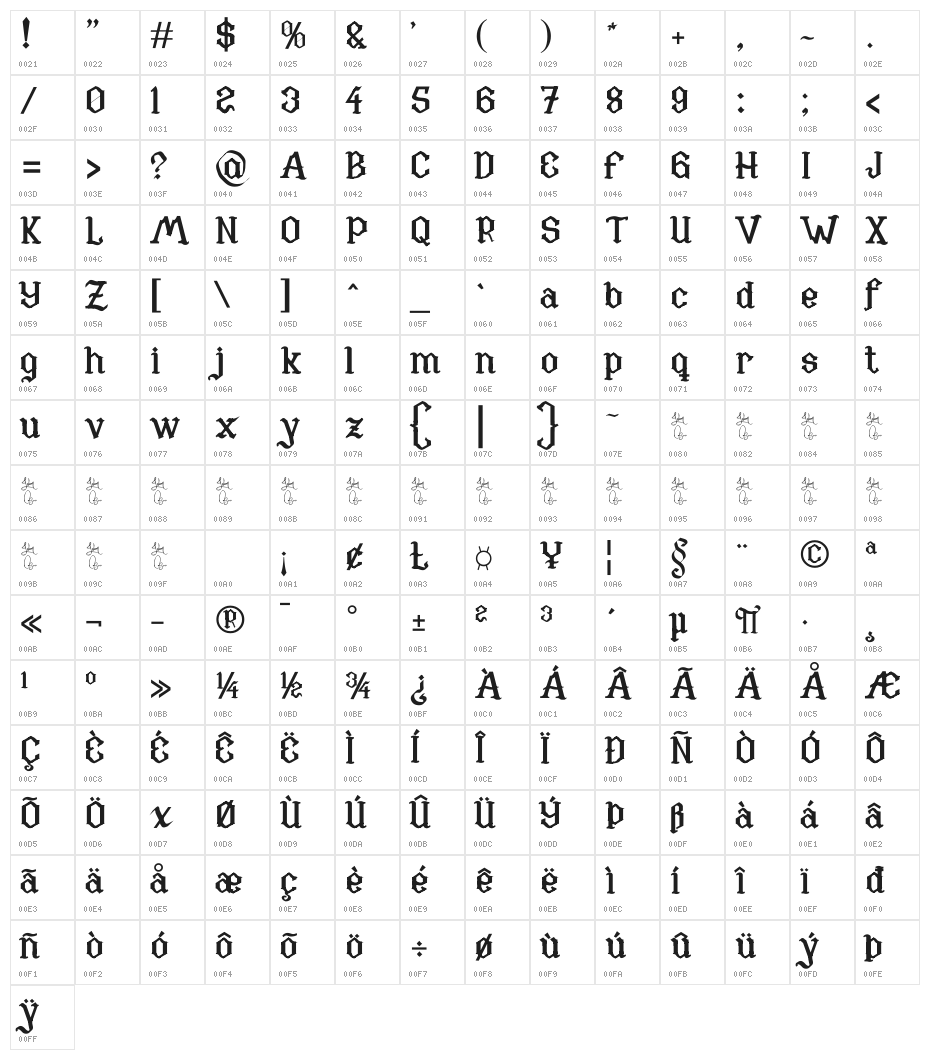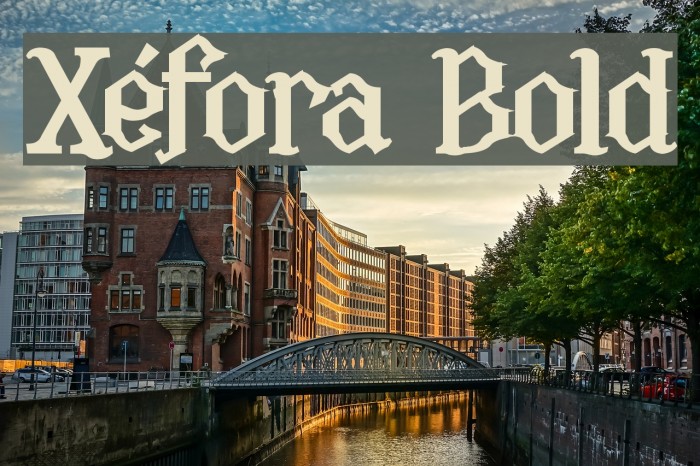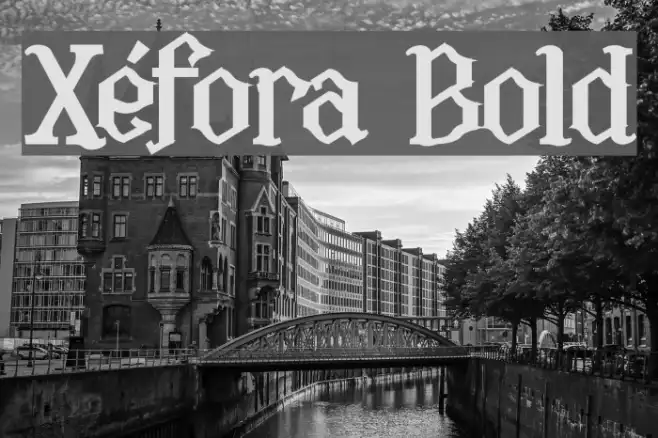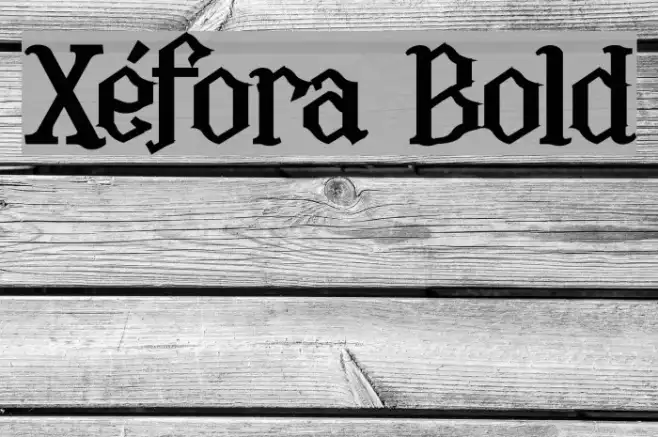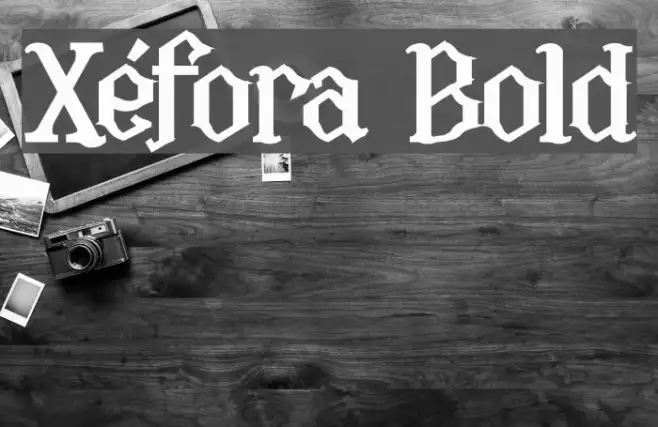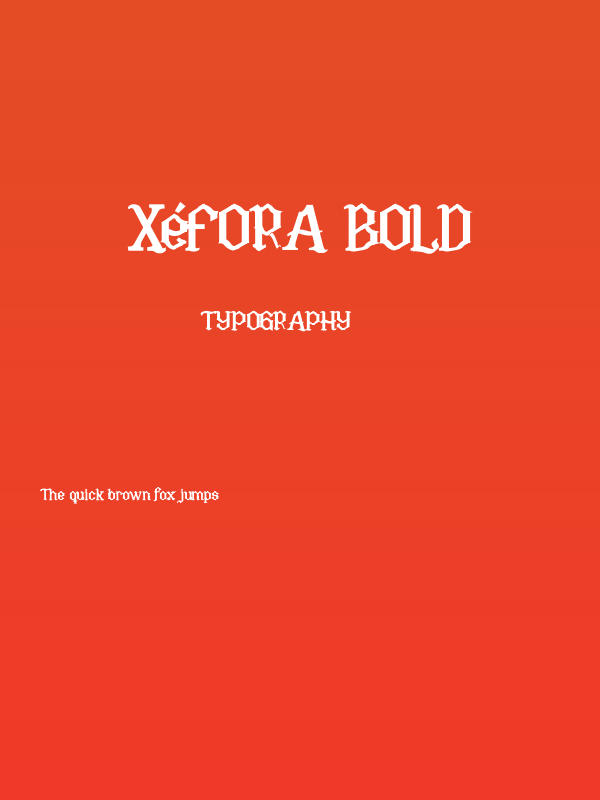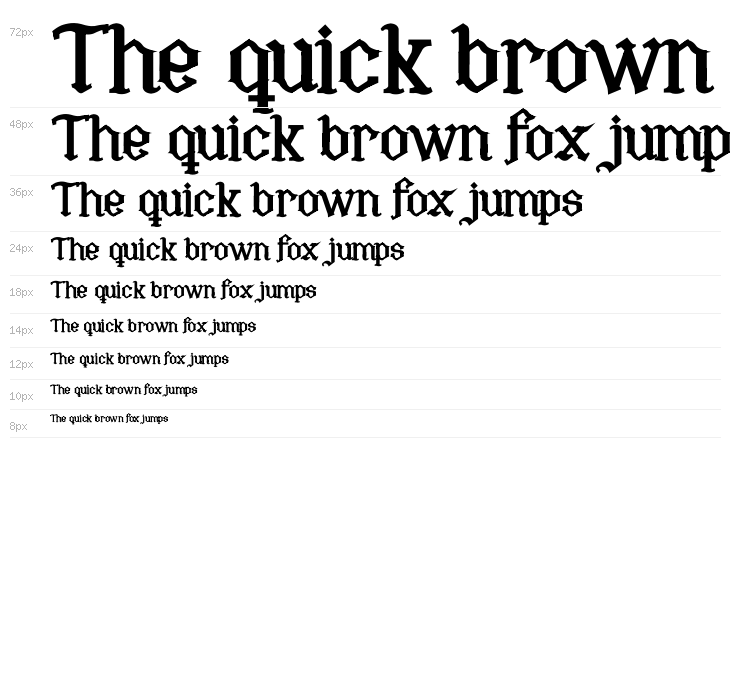
Xéfora Bold Font
This font exhibits a bold and striking blackletter style, characterized by its intricate and angular letterforms. The uppercase and lowercase letters maintain a consistent weight, with sharp edges and pointed serifs that give it a historic and authoritative appearance. The numerals and special characters follow the same design ethos, ensuring a cohesive look across all glyphs. The font's overall aesthetic is reminiscent of medieval script, making it ideal for projects that require a touch of tradition and elegance.
A bold blackletter font with intricate, angular letterforms and a historic feel.
• Font: Xéfora Bold
by JuanCasco
• Proposed Projects: Suitable for use in certificates, invitations, branding for luxury products, or any design that seeks to evoke a sense of tradition and elegance.
• Category: Blackletter
• Contrast: High
• Overall Style: Vintage
• Use Case: Logos, Headlines, Decorative text